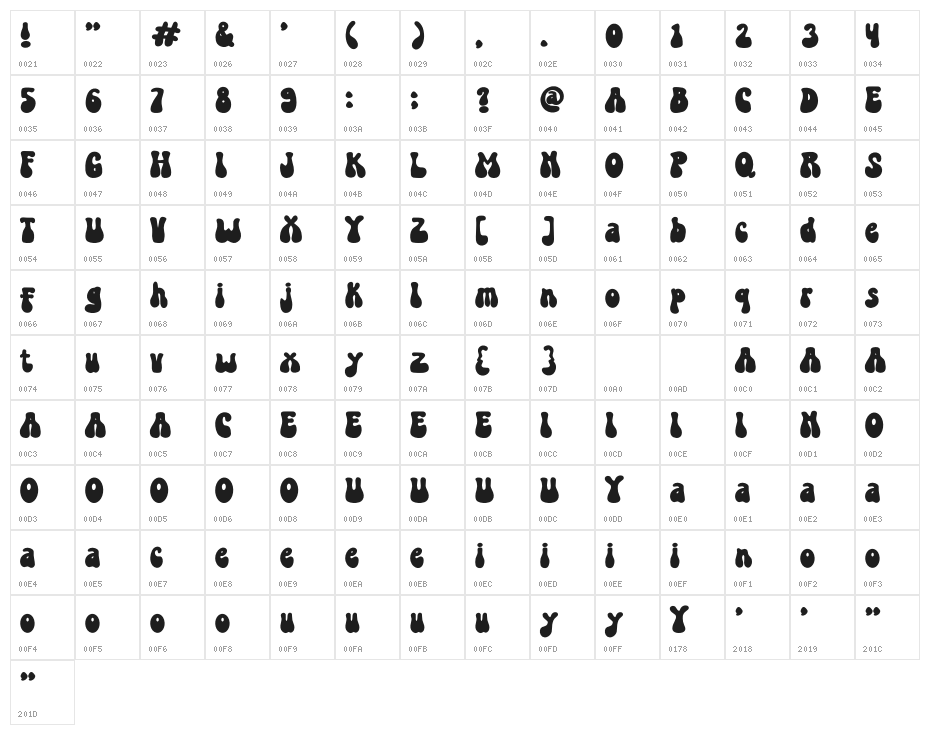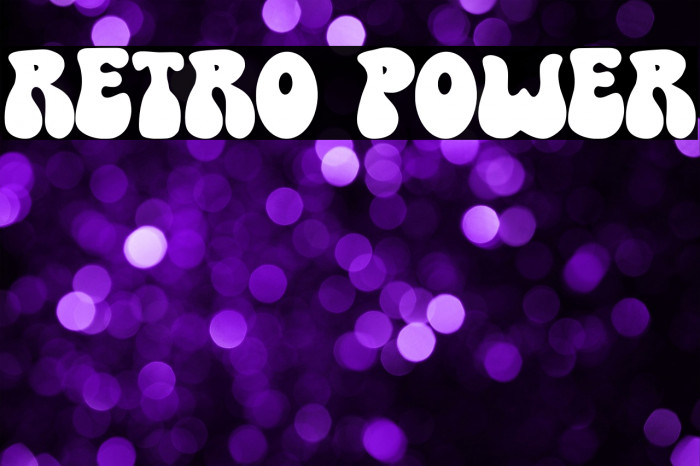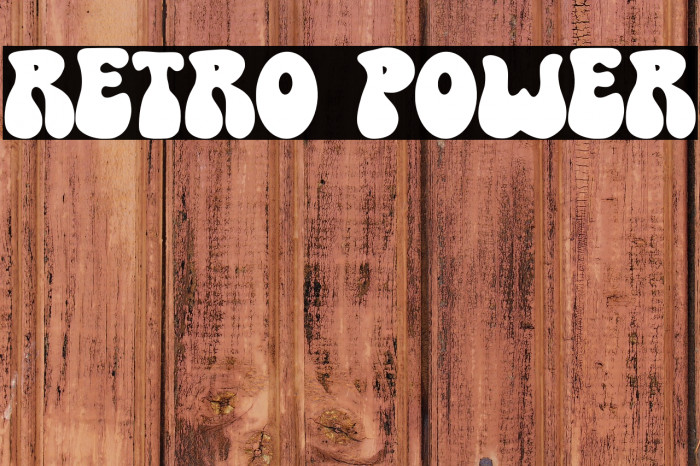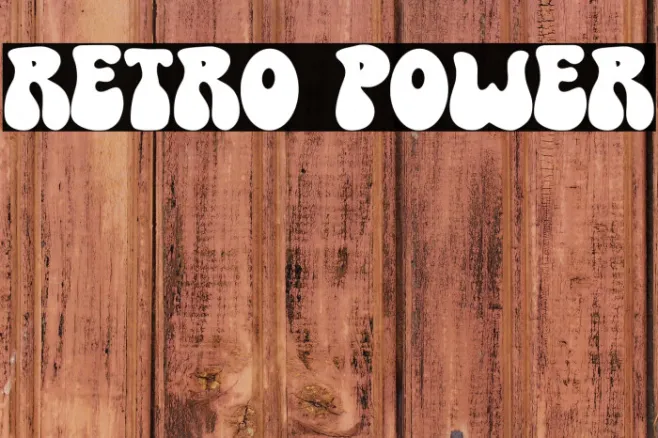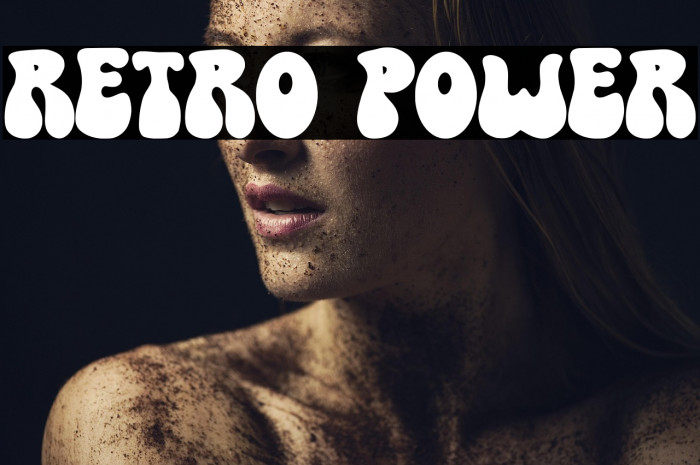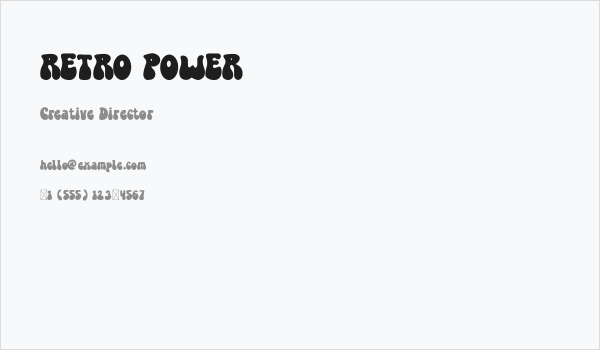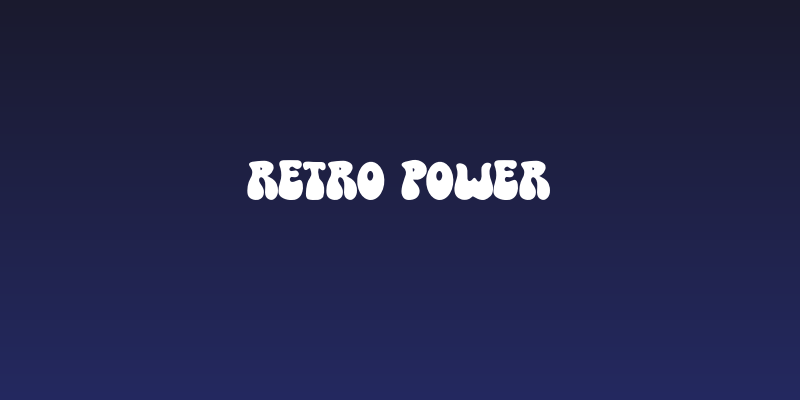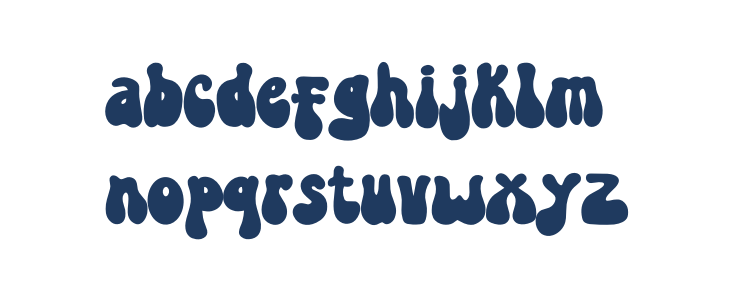
RETRO POWER Font
RETRO POWER Description
This font exudes a bold and playful retro vibe, characterized by its thick, rounded letterforms and bubbly appearance. The exaggerated curves and soft edges give it a whimsical and friendly feel, reminiscent of 1960s and 1970s design aesthetics. Each character is distinct and full-bodied, making it highly legible while maintaining a unique personality. The numbers and special characters follow the same playful style, ensuring consistency across all text elements. This font is perfect for capturing attention and adding a touch of nostalgia to any project.
| Overall Style | Retro |
| Proposed Projects | Ideal for vintage-themed posters, retro branding, playful packaging, and eye-catching headlines. |